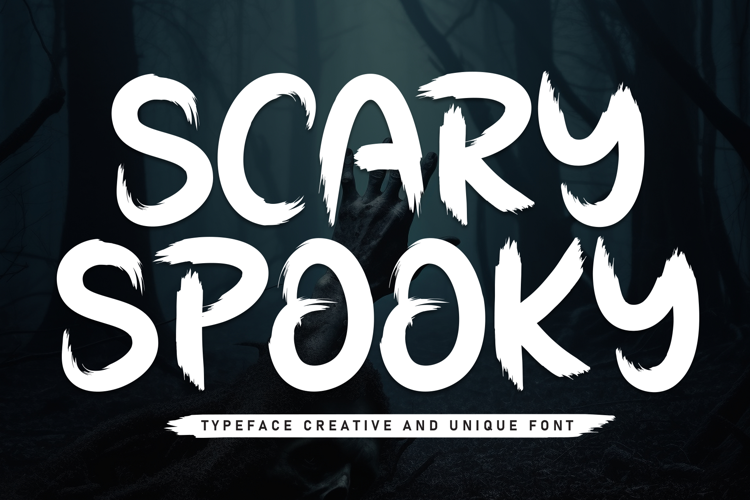
Scary Schriften | Spooky Sketch Halloween Font
Dive into the spooky crafting season with Scary Schriften, a chilling yet highly versatile hand-drawn display script! Created by Illustration Ink, this unique typeface features pointed, angled corners coupled with fine shiver marks detailed along the edges of every character to emulate an authentic, spine-tingling tremor look. This font package is packed with 3 distinct widths to offer comprehensive design adaptability for your projects. It is an extraordinary fit for Cricut and Silhouette cutting machine crafts, digital greeting cards, custom DIY spooky party apparel, festive vinyl decals, and creepy autumn event decor.